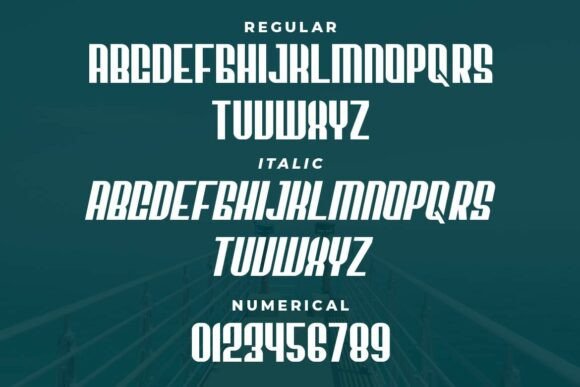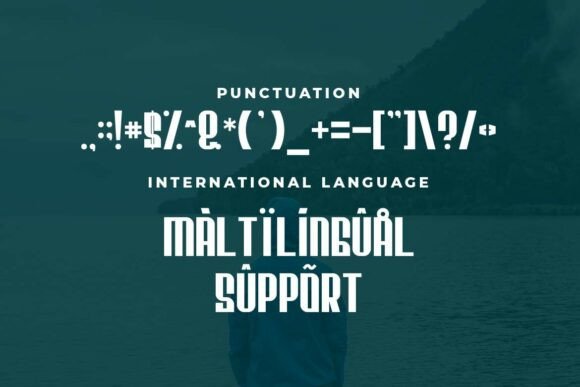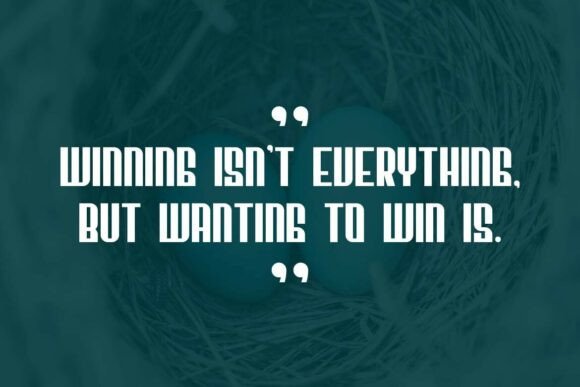
Introduction to Rupane Font
Have you ever stared at a blank page, eager to bring a creative project to life, only to be held back by the perfect font? For designers, the right font can make all the difference between a mediocre design and a stunning one. That’s where the Rupane Font comes in – a modern sans serif font that’s about to become your new go-to design resource.
With its sleek and sophisticated design, the Rupane Font offers a high-quality solution for any creative project. Its smooth curves, even spacing, and minimalist structure create a professional yet friendly tone that’s perfect for branding, editorial layouts, websites, presentations, and modern packaging. And the best part? You can download the Rupane Font for free, giving you a transparent background to let your creativity shine.
Whether you’re working on a small design task or a large-scale project, the Rupane Font is an invaluable asset for any designer. Its versatility and elegance make it a valuable addition to your design toolkit, and with its free download option, you can start using it today to take your designs to the next level.
Key Features of Rupane Font
- High-quality, elegant design suitable for creative projects and professional designs.
- Transparent background, making it easy to customize and use in various design applications.
- Designed to be a versatile design resource, ideal for use in logos, branding, and other creative projects.
- Includes a range of characters and glyphs, making it suitable for use in a variety of languages and creative applications.
Honest Review: Rupane Font
I recently had the opportunity to work with the Rupane Font, and I must say it’s been a great experience. This high-quality font has been a game-changer for my creative project, allowing me to add a unique touch to my designs.
- ✨ Transparency: One of the standout features of the Rupane Font is its transparent background, which makes it perfect for designing graphics and logos that require a clean and minimalist look.
- ✨ Customization: The font is highly customizable, allowing me to adjust the size, color, and style to suit my design needs.
While the Rupane Font has its strengths, there are a few limitations to consider:
- ⚠️ Limited Font Variations: Compared to other fonts, the Rupane Font has a relatively limited number of variations, which may not be suitable for designers who require a wide range of font styles.
- ⚠️ Not Ideal for Body Text: Due to its unique design, the Rupane Font may not be the best choice for body text, as it can be difficult to read at small sizes.
Overall, I’m impressed with the Rupane Font and would highly recommend it to designers looking for a high-quality, creative design resource. While it may have some limitations, its unique features and free download make it an excellent addition to any design toolkit.
Tips for Getting the Most Out of Rupane Font
To get the most out of Rupane Font, experiment with different font sizes, colors, and styles to find the perfect combination for your design. You can also use the font in conjunction with other design elements to create a unique and eye-catching visual effect.
Rupane Font is perfect for a variety of creative projects, including logos, business cards, and website headers. Its high quality and transparent background make it an ideal design resource for any project that requires a professional and visually appealing touch.
Can I customize the Rupane Font to fit my specific design needs?
Yes, the Rupane Font is fully customizable, allowing you to adjust the font size, style, and color to fit your specific design needs. You can also use font editors or software to modify the font’s characteristics and create a unique look for your project. However, please note that any modifications made to the font may affect its performance and compatibility with certain